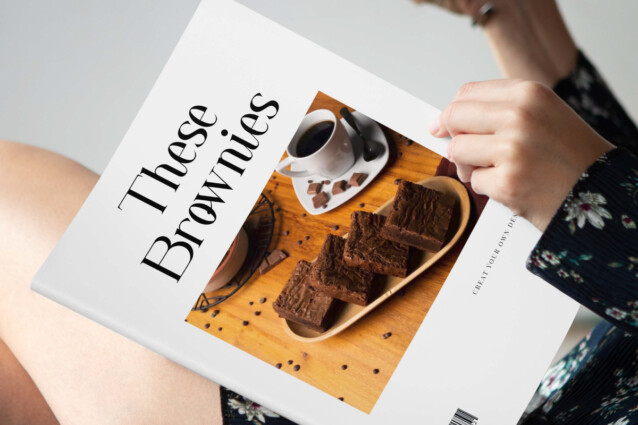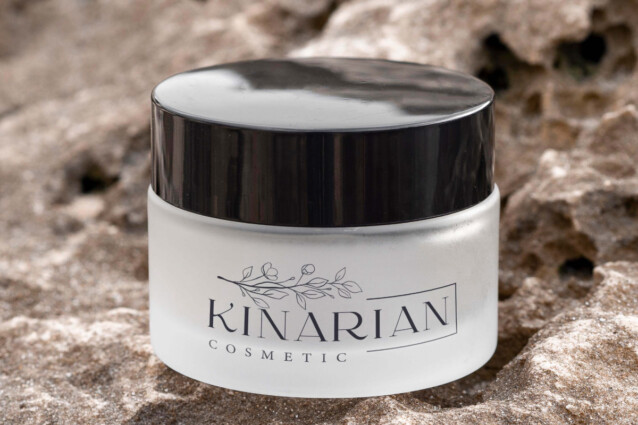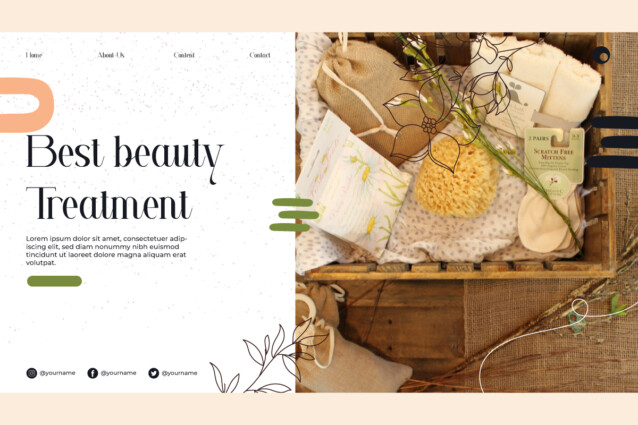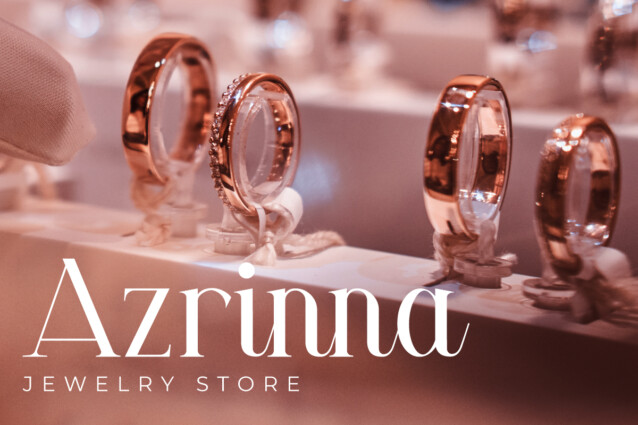
Adhitya Font
Adhitya Font is a modern stylish serif display font that will be able to make your business feel awesome, such as accessories, architect, bakery and pastry, clothing brand, cooking class, cosmetic, café, fashion designer, film, furniture, interior design, jewelry, photography, printing, publishing, real estate, restaurant, school, skincare, social media content, writer, and other things with a touch of class that flows.